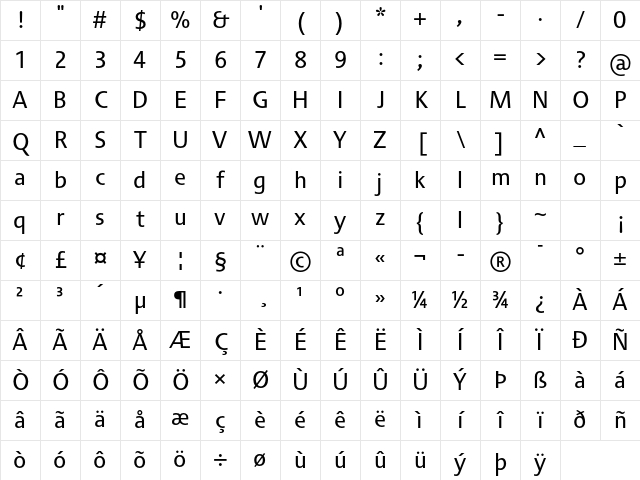
Cisalpin LT Std Regular
Designer: Felix Arnold
Design Context for Cisalpin LT Std
Cisalpin LT Std is a composed and adaptable typeface that performs quietly and consistently across a wide range of design contexts. Its slender proportions lend an understated elegance to any composition.
Pro Tip: Use Cisalpin LT Std in both headline and body roles to test its range before committing to a single application.